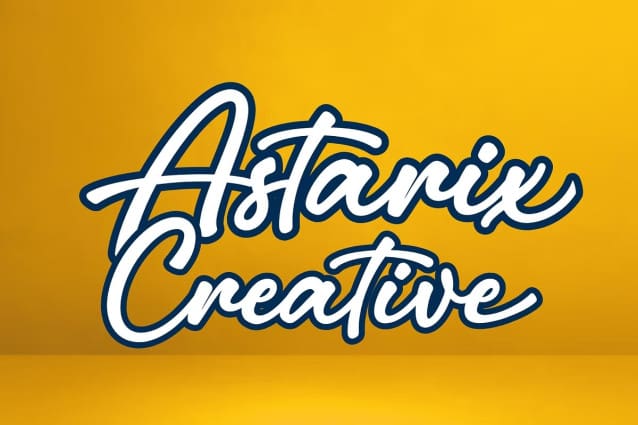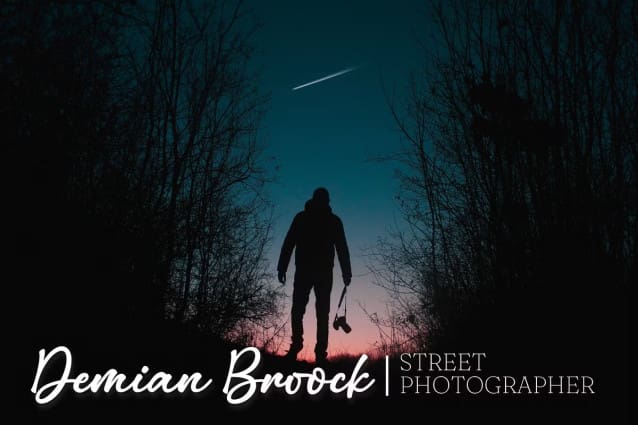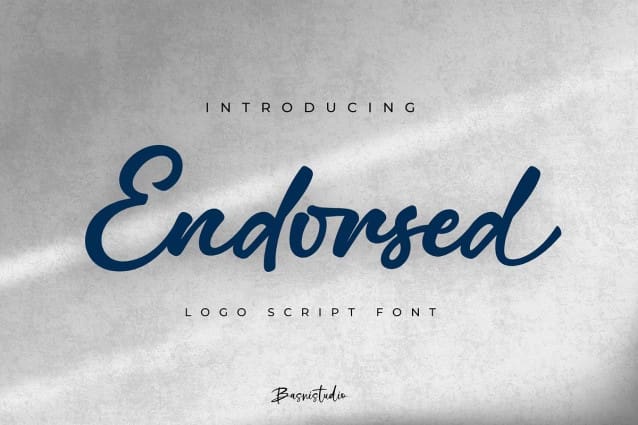
Endorsed Script Font
Endorsed Script Font, made by Naturaly Bold Script With Authentic Style. This Font is perfect for an magazine, clothes, quotes, and so much more. This font is PUA encoded, which means you can access all of the glyphs.